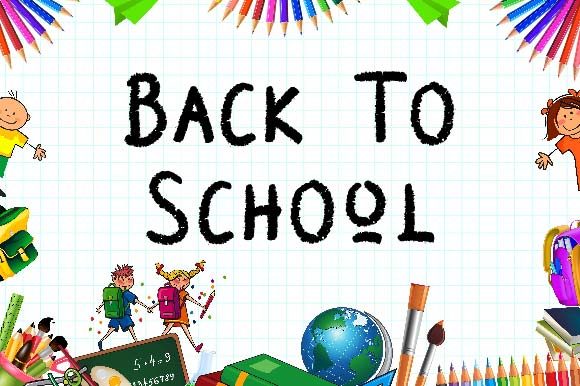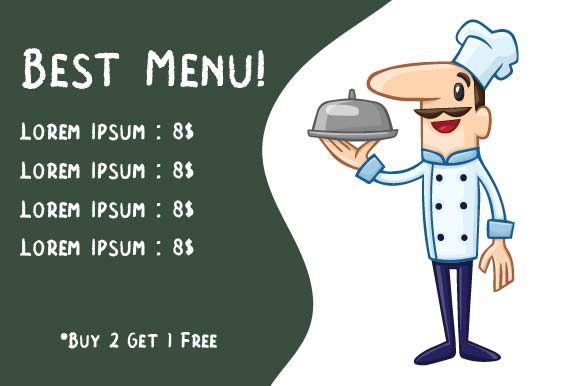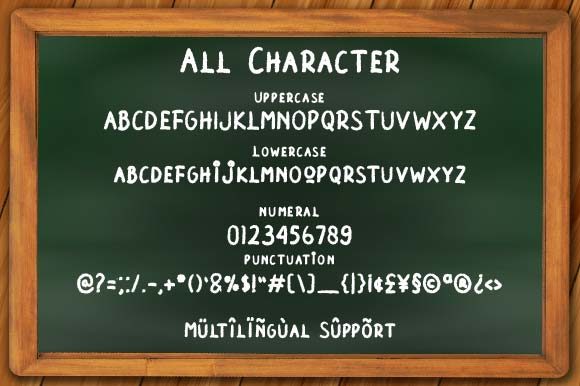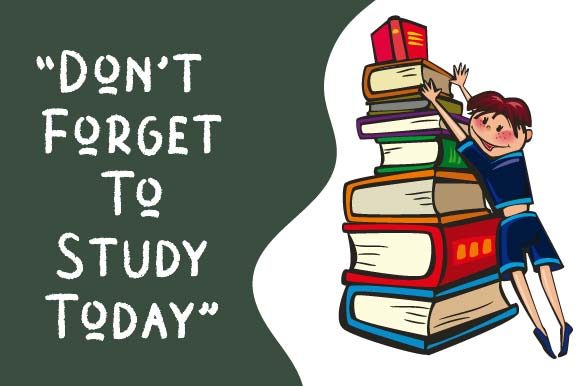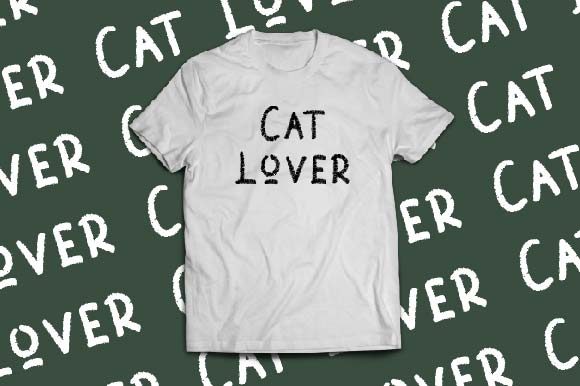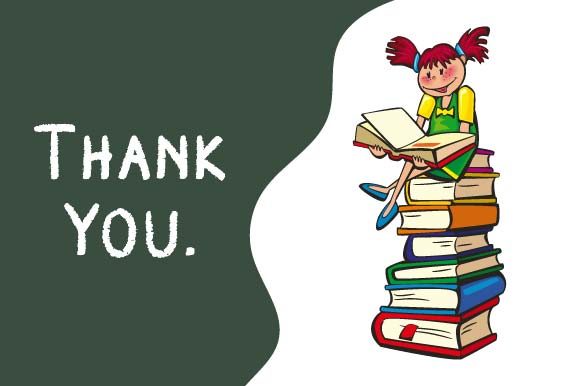
Introducing Chalk Perio Font: The Playful and Authentic Display Font for Crafty Ideas
Are you a designer or crafter looking for a unique and eye-catching font to elevate your creative projects? Look no further than Chalk Perio Font, a playful and authentic display font that’s perfect for a wide range of crafty ideas. From letterheads and titles to stationery and more, Chalk Perio is the perfect addition to your font collection.
What is Chalk Perio Font?
Chalk Perio Font is a carefully crafted display font that mimics the look of traditional chalk writing. With its rough, textured edges and playful flair, this font is sure to add a touch of whimsy and personality to any design project. Whether you’re creating a logo, title, or letterhead, Chalk Perio Font is the perfect choice for anyone looking to add a bit of charm and character to their work.
Key Features of Chalk Perio Font
• Playful and Authentic Design: Chalk Perio Font features a unique and authentic design that’s reminiscent of traditional chalk writing.
• Wide Range of Uses: This versatile font is perfect for a wide range of crafty ideas, from letterheads and titles to stationery and more.
• Easy to Read: Despite its playful design, Chalk Perio Font is easy to read and understand, making it perfect for use in a variety of design projects.
• High-Quality Design: Chalk Perio Font is a high-quality design that’s perfect for use in both digital and print projects.
Uses for Chalk Perio Font
So, what can you use Chalk Perio Font for? The possibilities are endless! Here are a few ideas to get you started:
• Letterheads and Stationery: Add a touch of personality to your letterheads and stationery with Chalk Perio Font.
• Titles and Headings: Use Chalk Perio Font to create eye-catching titles and headings for your design projects.
• Logos and Branding: Create a unique and memorable logo for your business or brand with Chalk Perio Font.
• Signs and Posters: Use Chalk Perio Font to create eye-catching signs and posters for your business or event.
Why Choose Chalk Perio Font?
So, why choose Chalk Perio Font over other display fonts on the market? Here are a few reasons:
• Unique Design: Chalk Perio Font features a unique and authentic design that’s sure to stand out from the crowd.
• Versatility: This versatile font is perfect for a wide range of crafty ideas and design projects.
• High-Quality: Chalk Perio Font is a high-quality design that’s perfect for use in both digital and print projects.